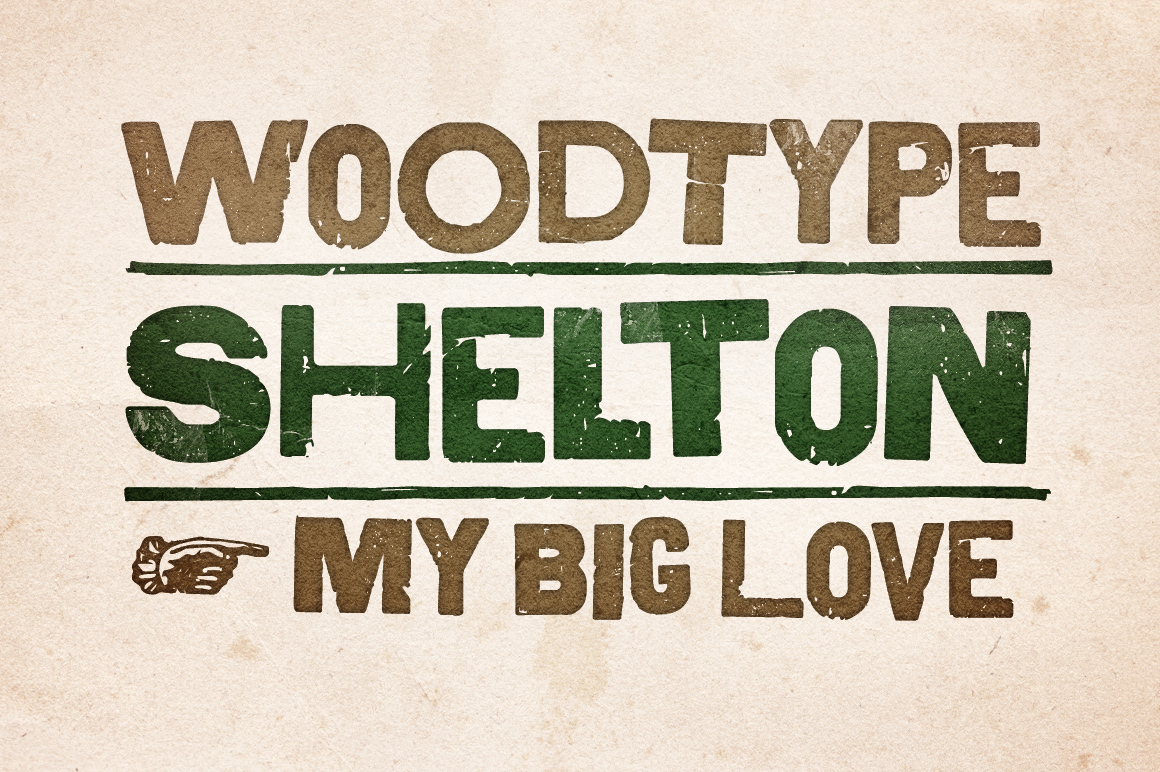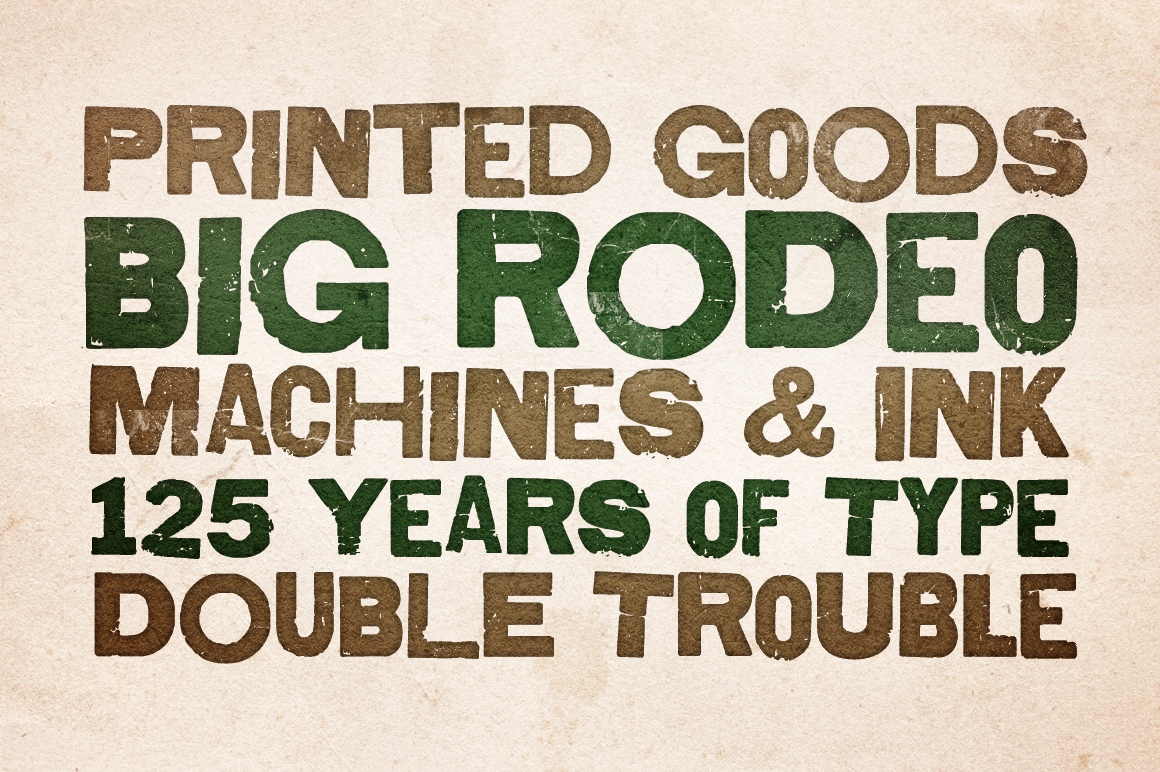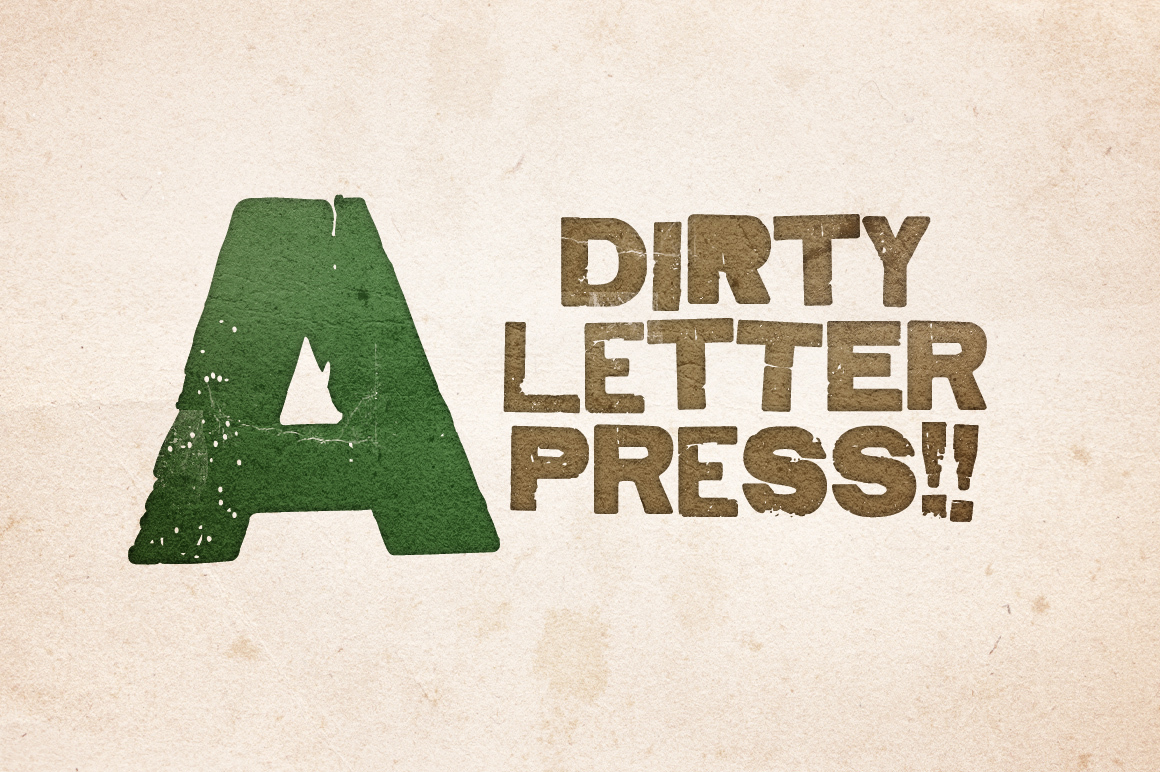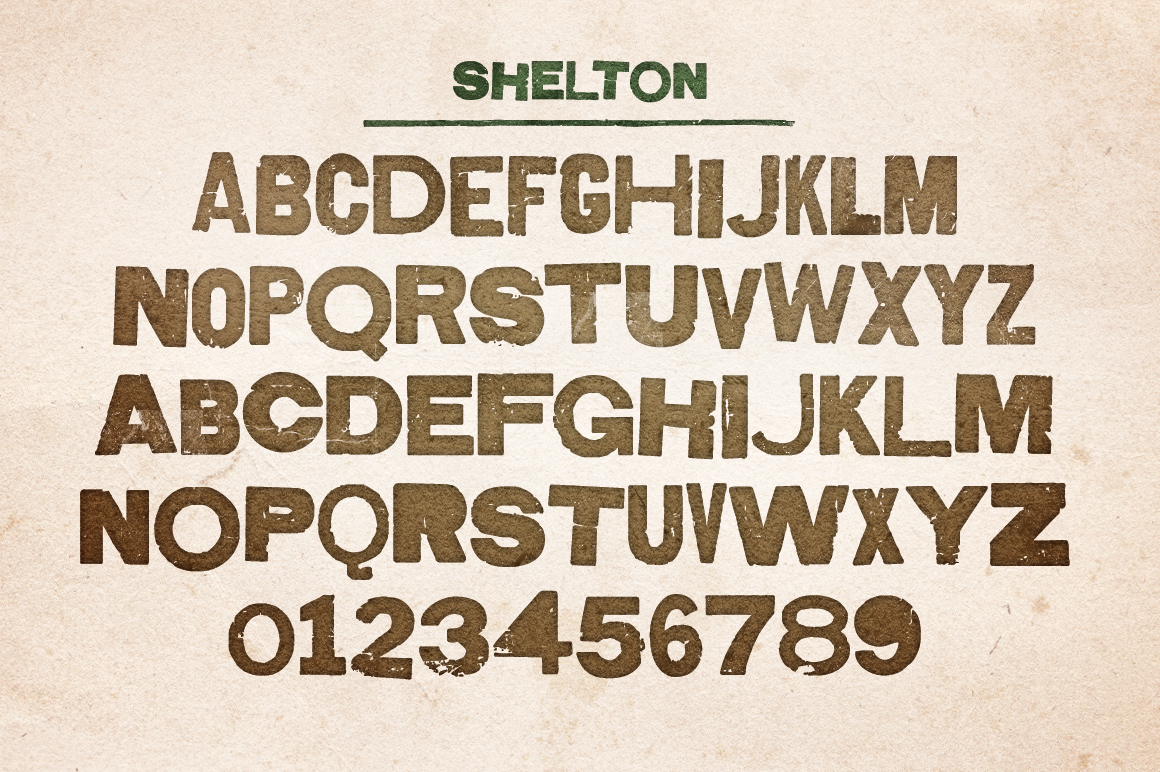
Shelton is a Typeface with an eroded, printed look. The letters seem to be from different alphabets to support the wood type feeling. Every letter has an alternate character. Shelton has wide language support and also contains arrows and other special glyphs available through the OpenType contextual alternates feature.
Shelton
A puzzled wood treasure chest.
Printed wood type letters: Grotesk.
The whole look and the idea of mixed up letters is coming from the wood type era where each letter has been carved out of wood and the alphabets where stored in drawers or big ones even in shelves. Today in the digital age we have much more options and need less space for the storage of typefaces – but the handmade and crafted look has its own quality which is difficult to achieve with digital products – But we gave our best: Each letter has an alternate counterpart to avoid the typical font-repitition-effect: So you can just pick the alternate option and try out how it looks best.